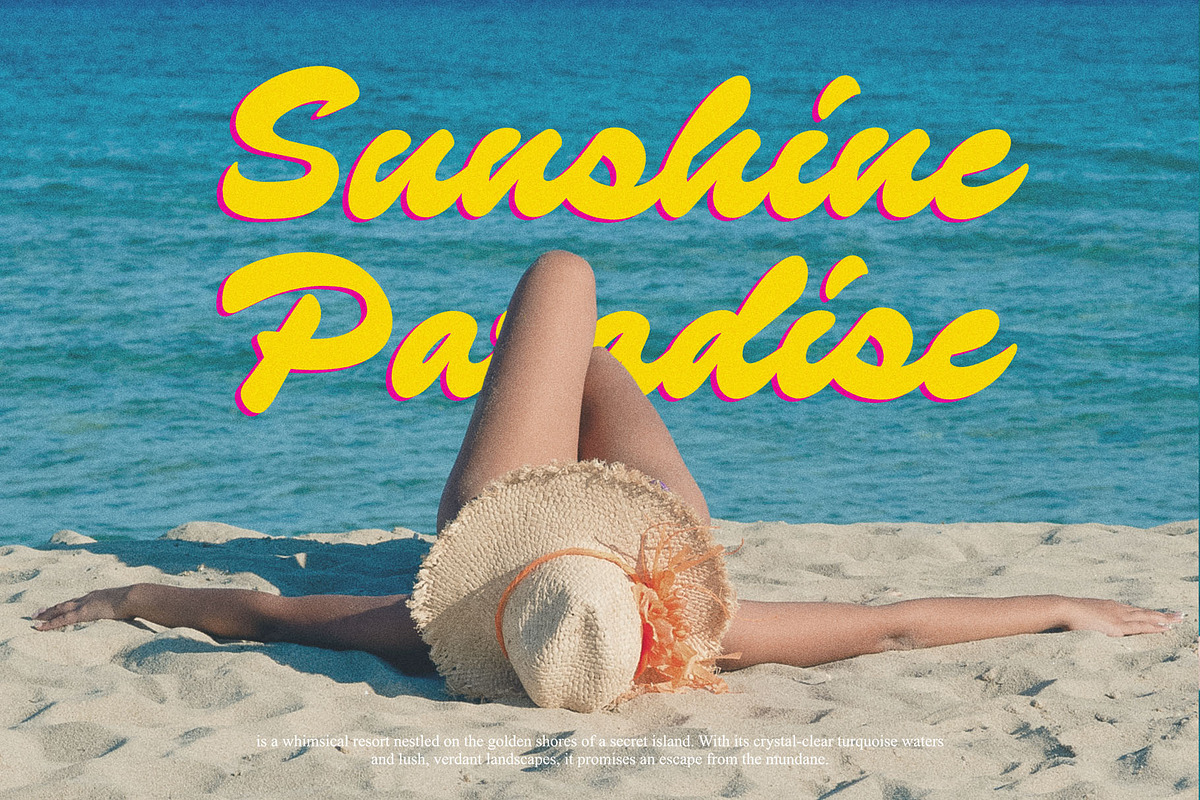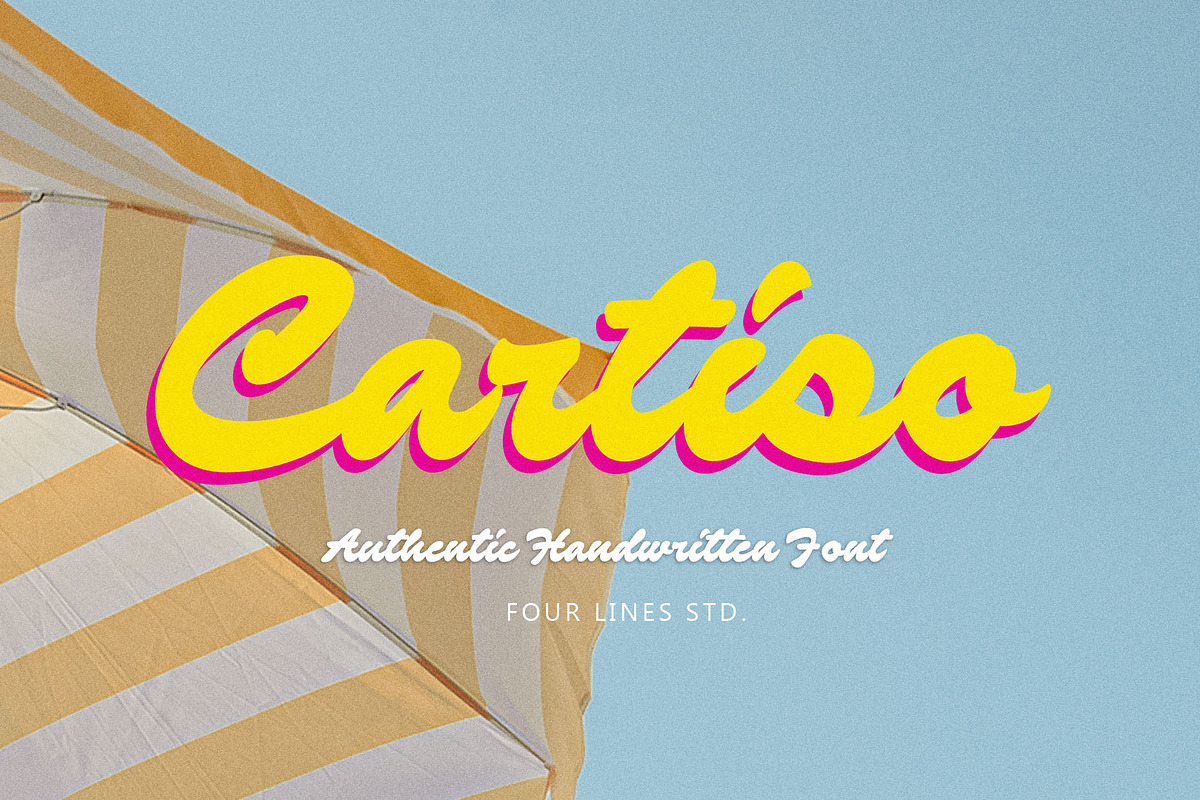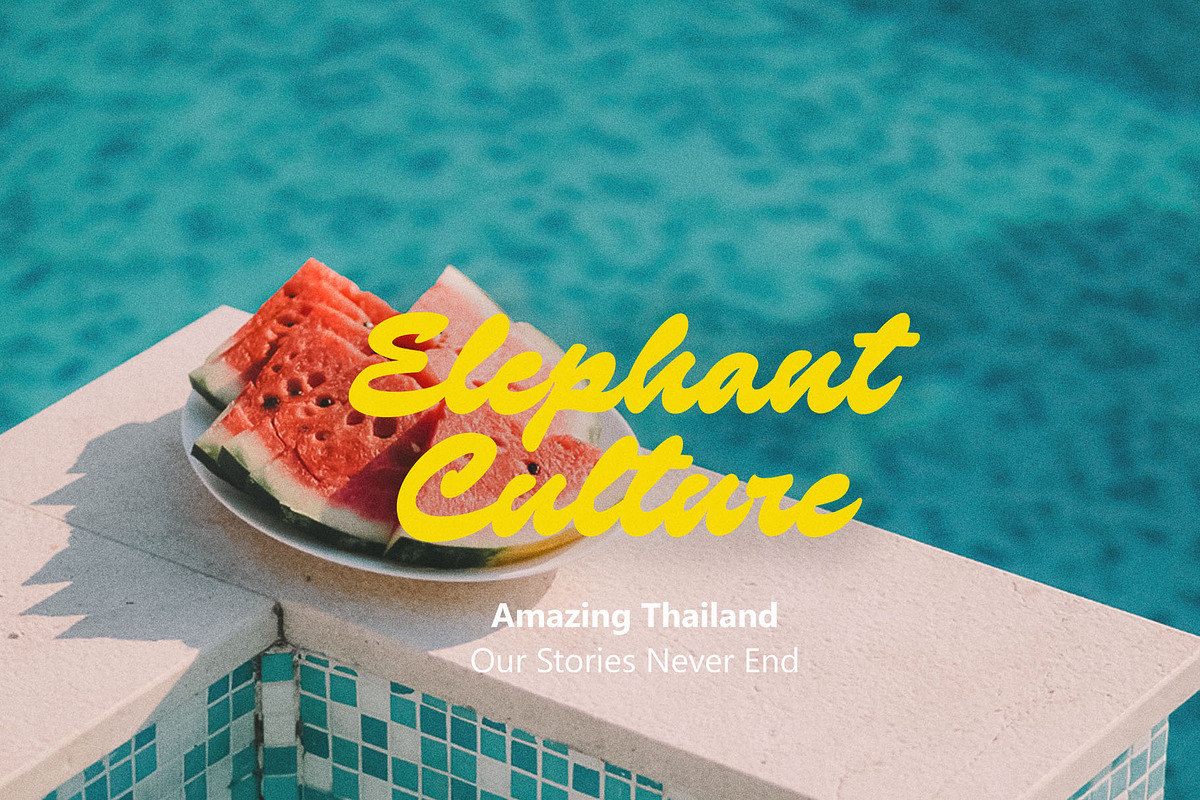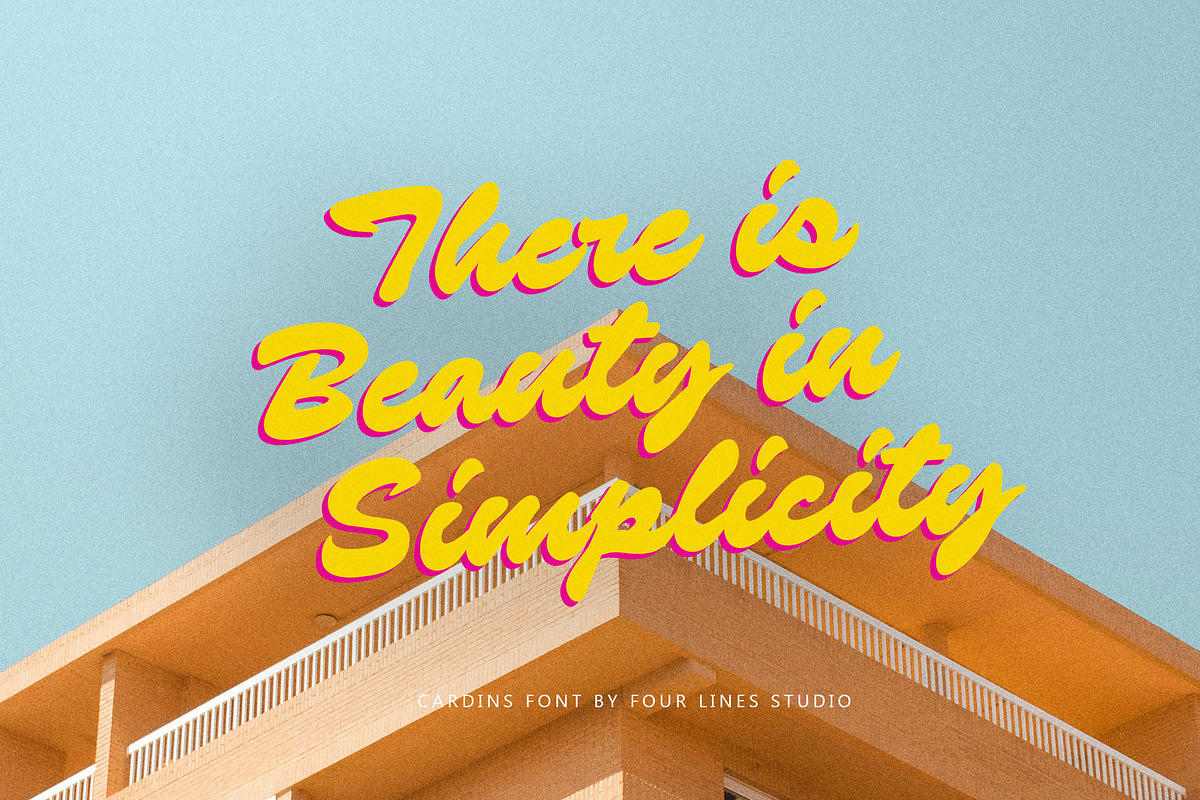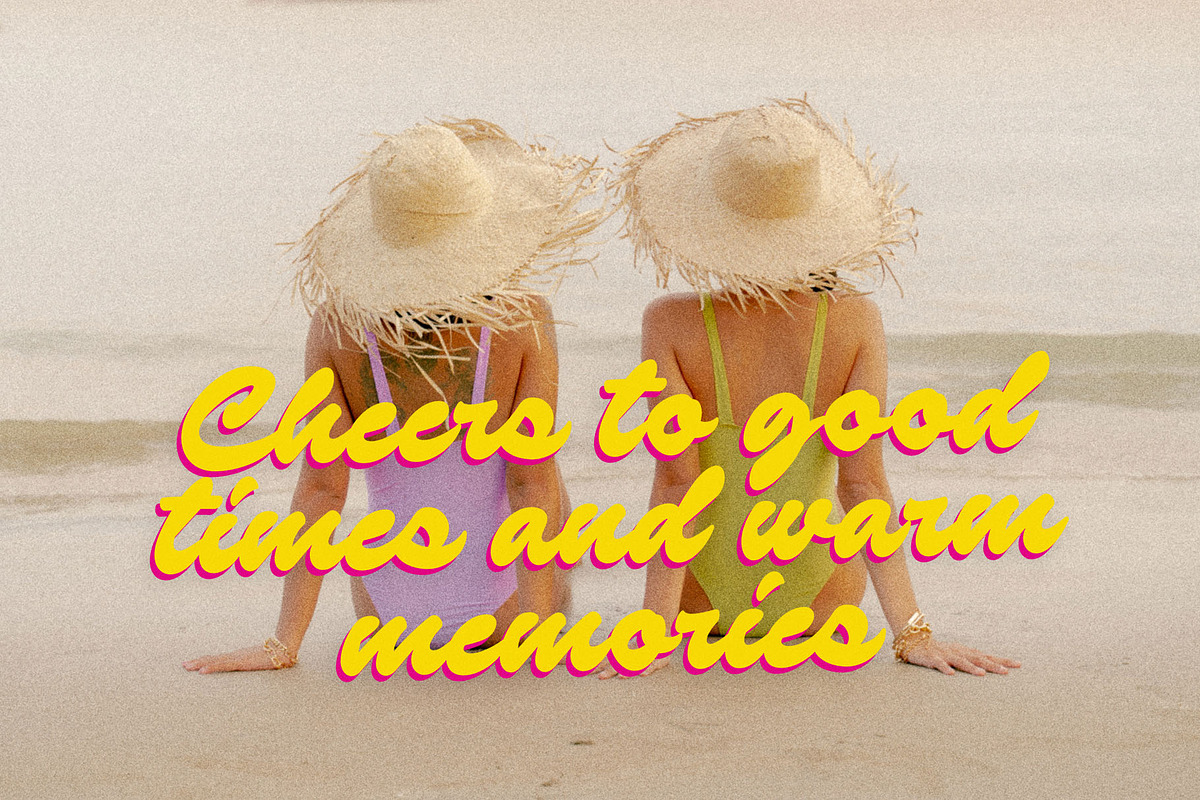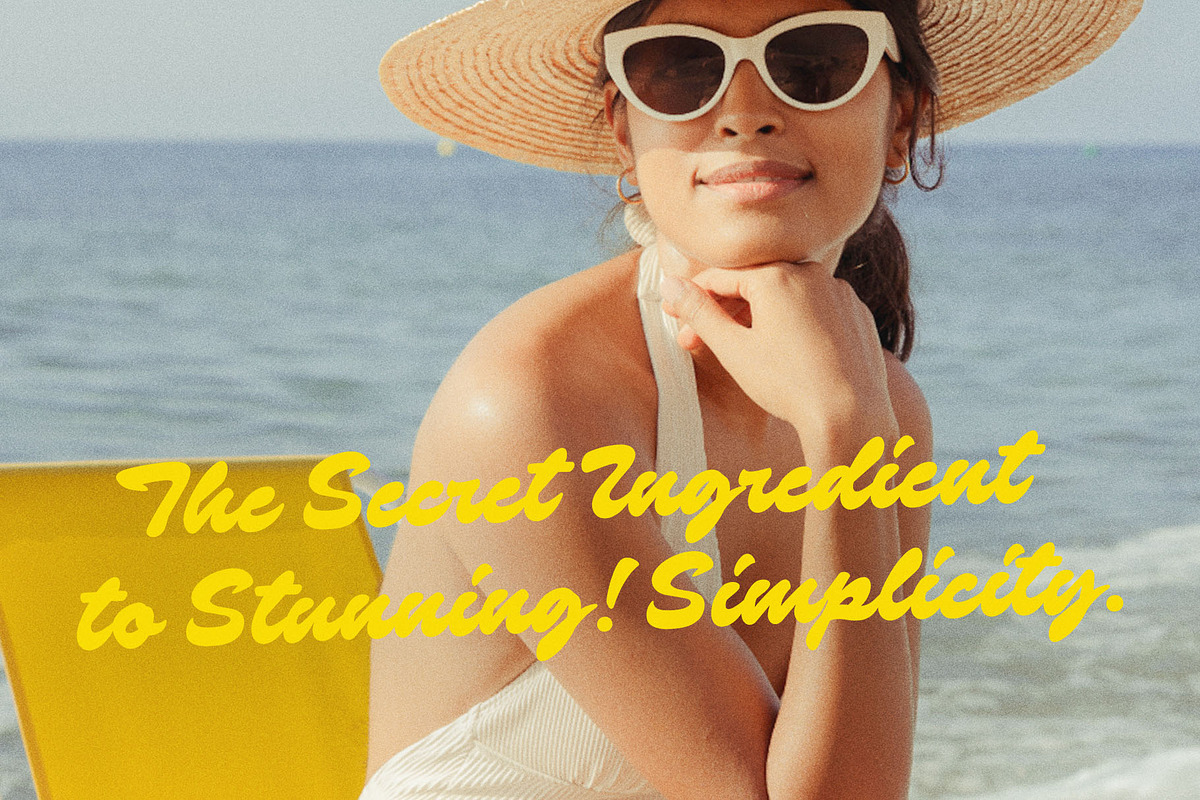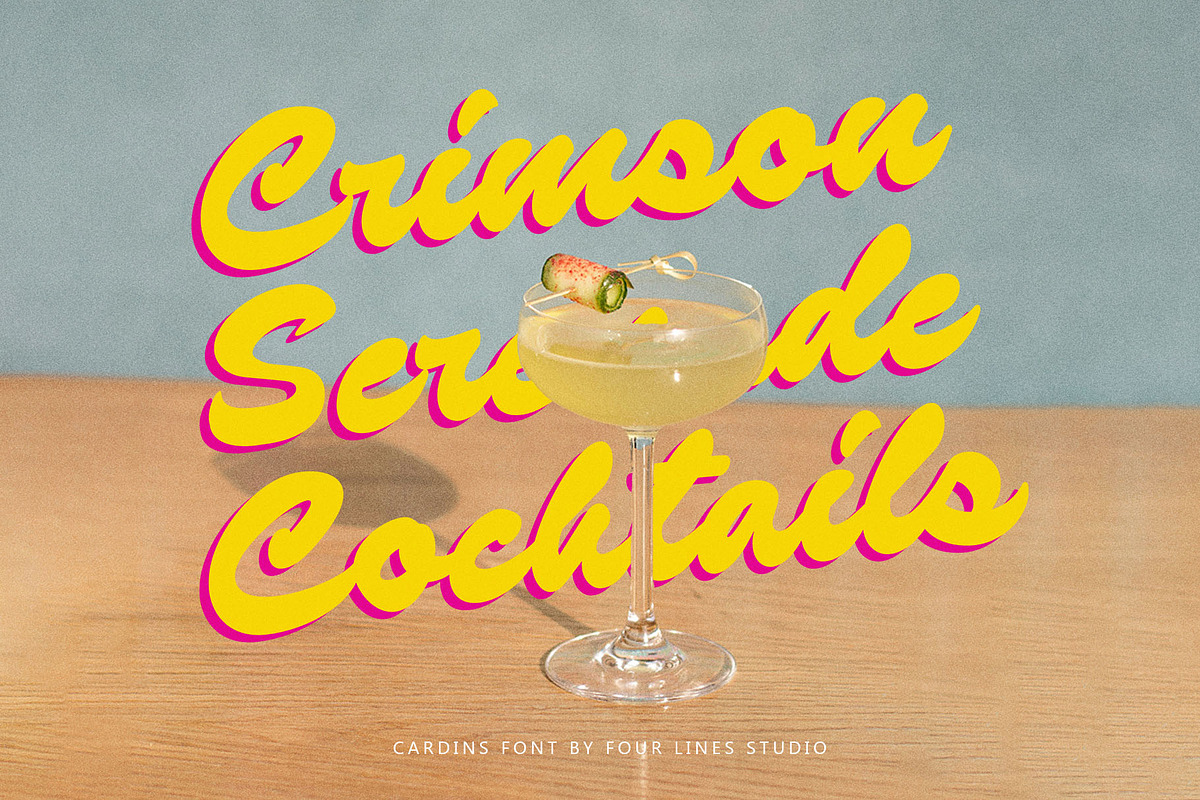
Cartiso– Handwritten font
Cartiso is a bold script font inspired by marker strokes, bringing a vibrant retro vibe to your designs. With funky character, this font is perfect for headlines that need to stand out and make a statement.